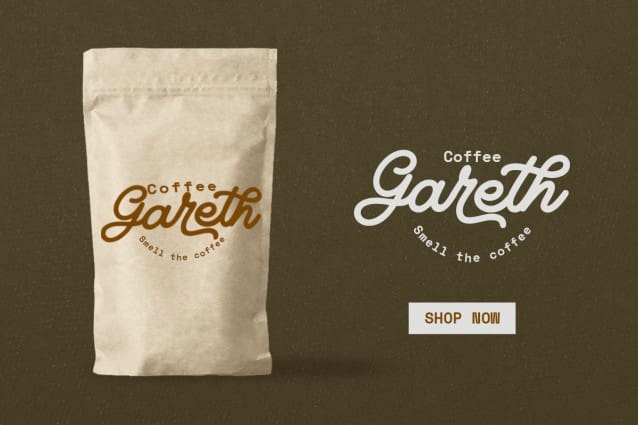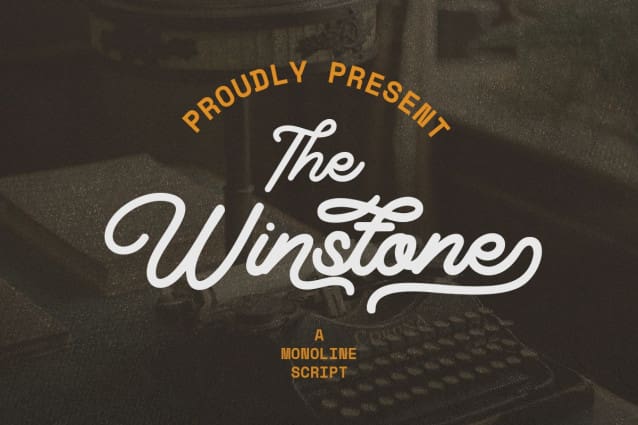
Winstone Monoline Font
Winstone Monoline Font is classy monoline font with swash and ligature that looks modern and perfect for your project.
Winstone is perfect for branding projects, logo, wedding designs, social media posts, advertisements, product packaging, product designs, label, photography, watermark, invitation, stationery and any projects that need handwriting taste.